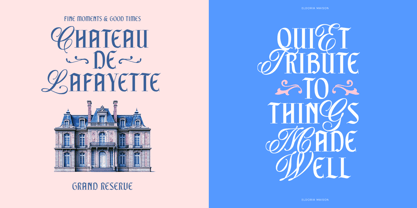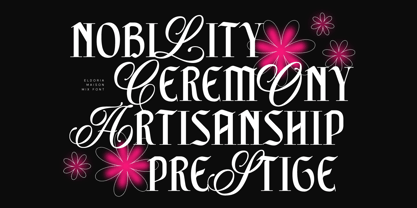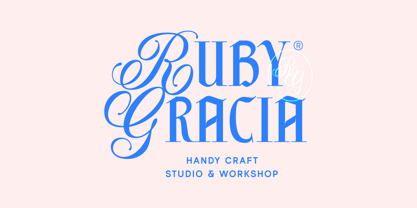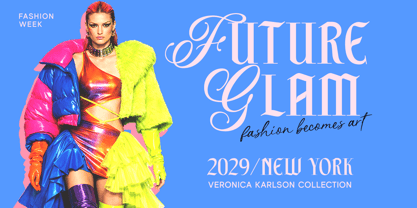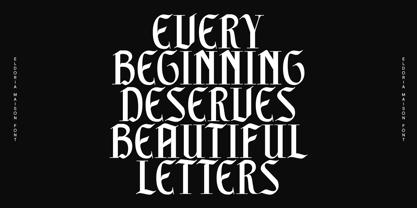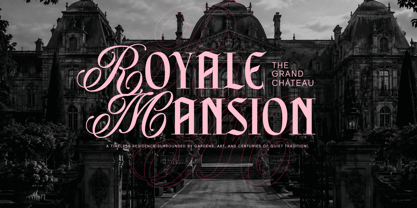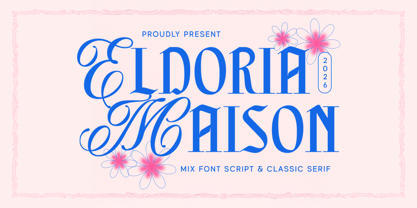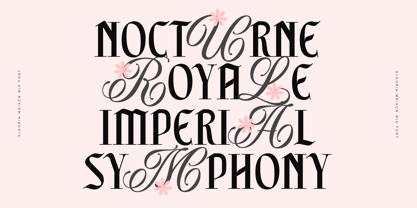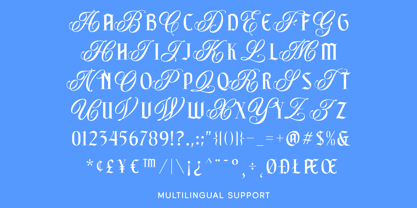
Eldoria Maison
Eldoria Maison is an elegant mix font that blends expressive calligraphy with a bold classic serif, creating a refined yet romantic look inspired by grand European maisons and timeless fashion. The flowing script adds graceful movement and personality, while the structured serif brings a strong editorial feel.